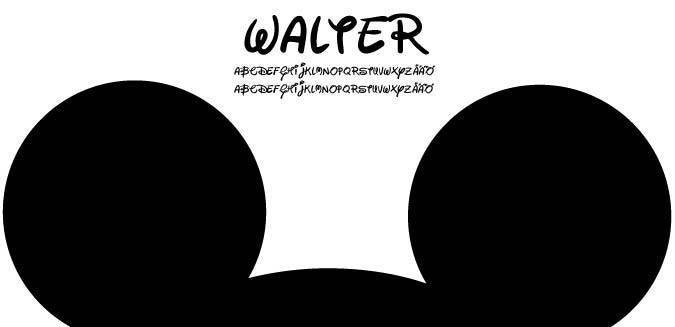
Free Walter Font
Featuring the stunning free walter font. Font Space has created this amazing and beautiful free font. This is absolutely fancy font so you can easily make world-class designs.